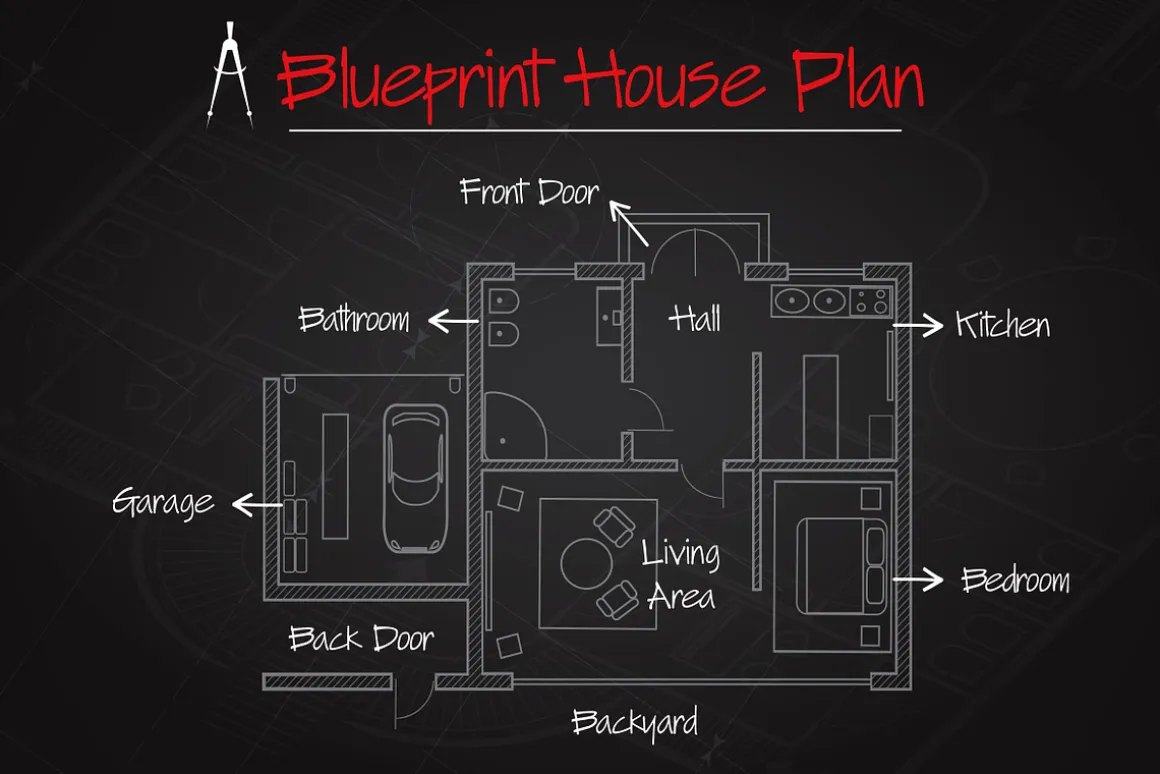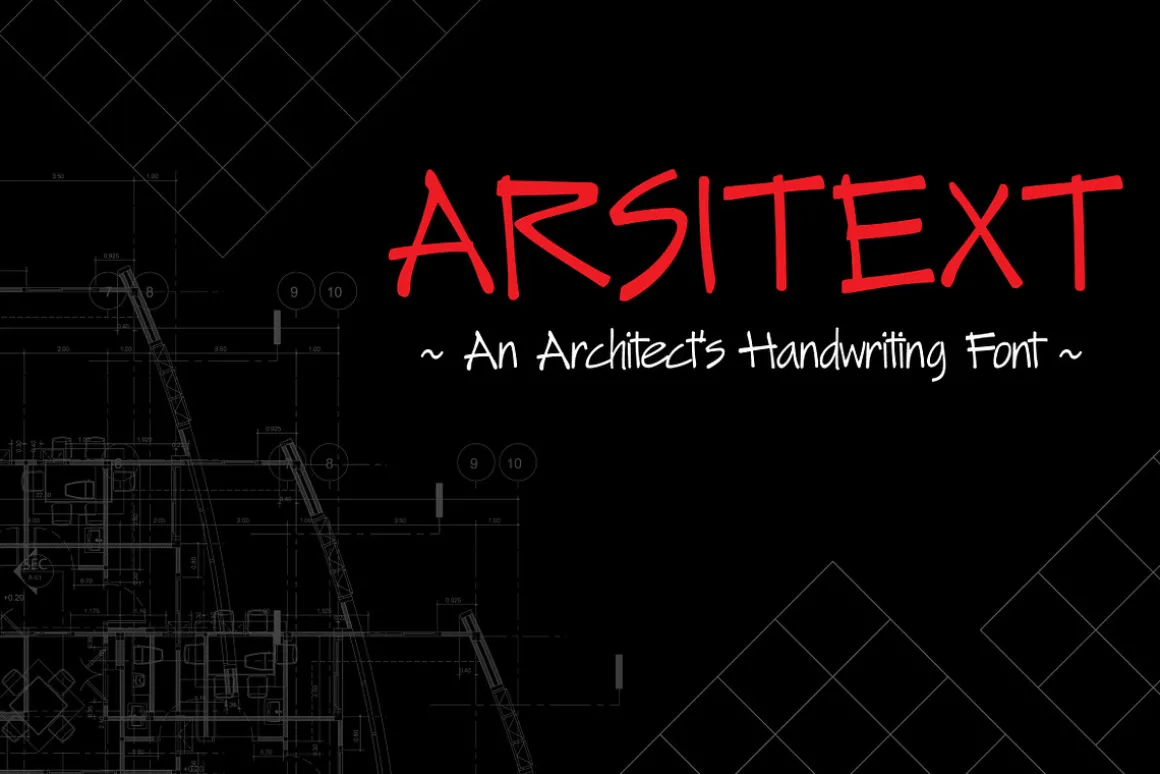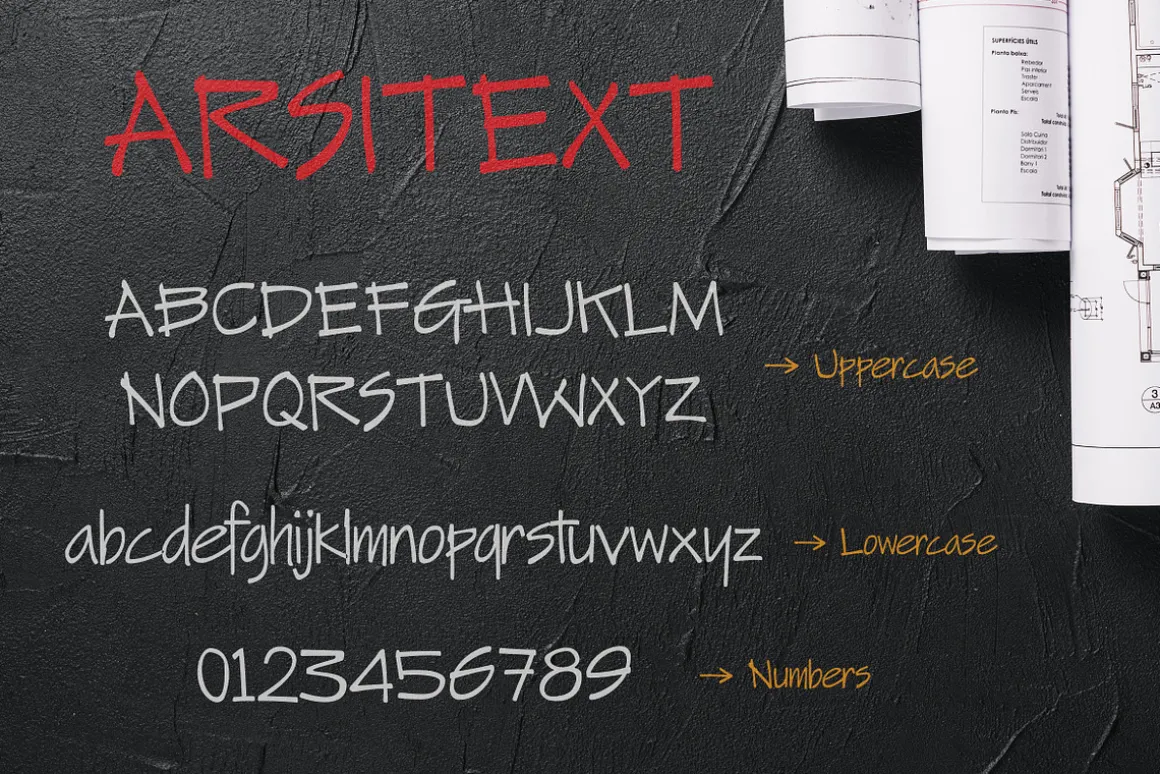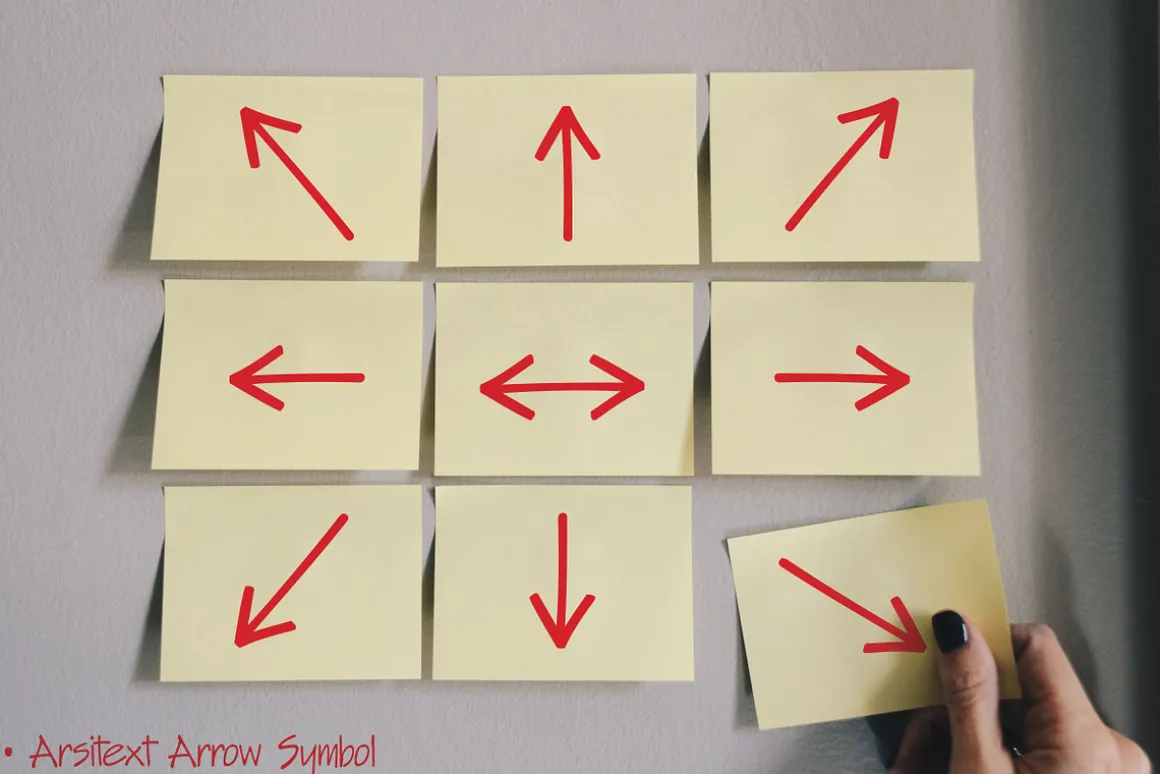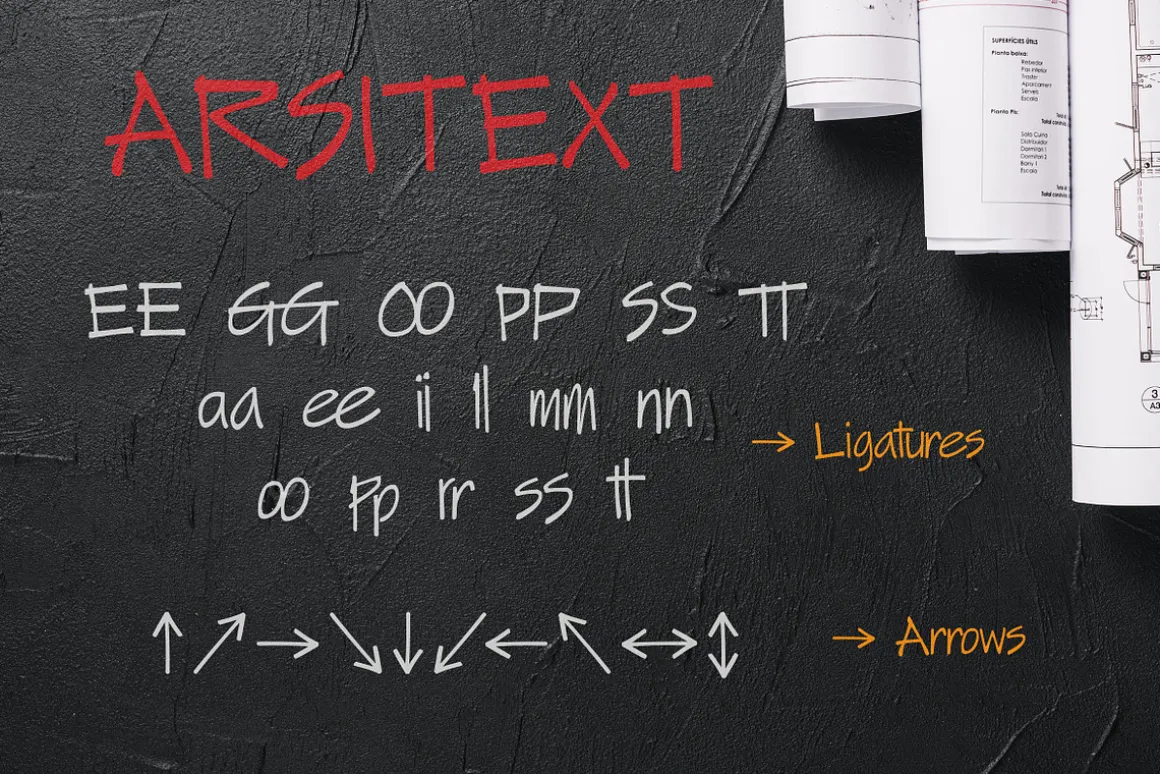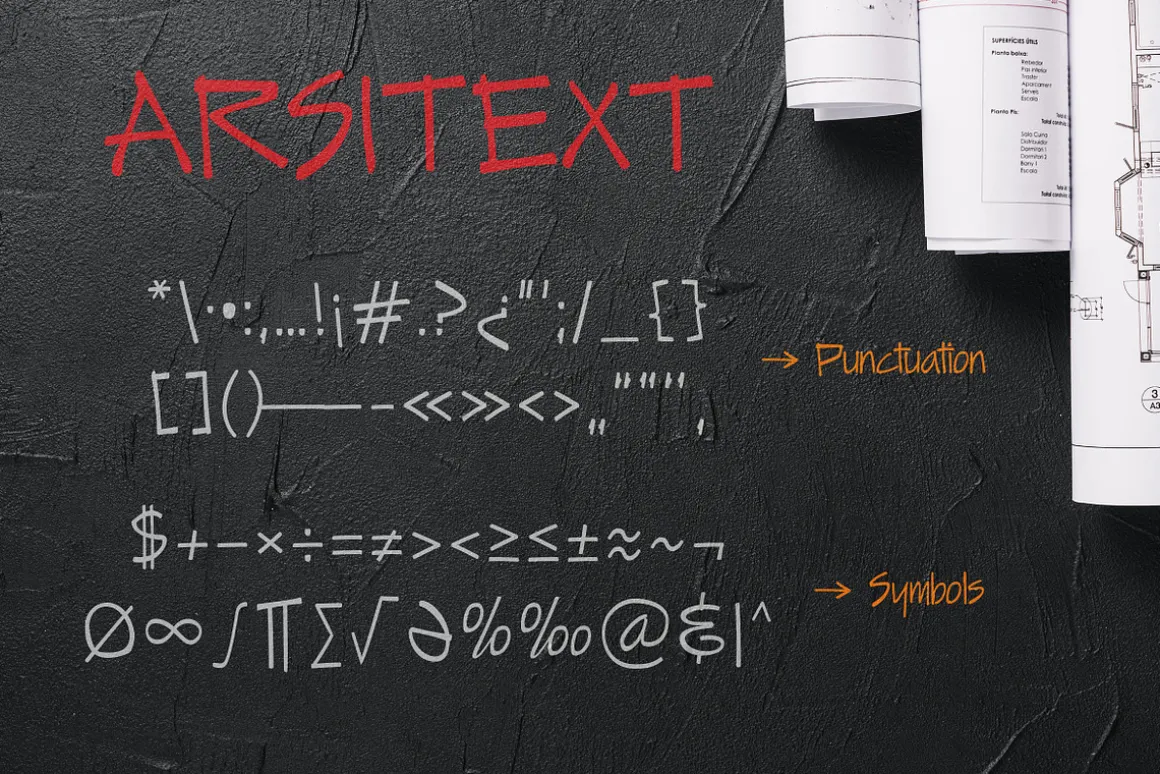
Arsitext is an Architect’s Handwriting display font. It has Opentype features ligatures of character and extra Arrow Symbol, To give you an extra creative work. He’s perfect for the designer, architect or orderly list-maker in all of us.